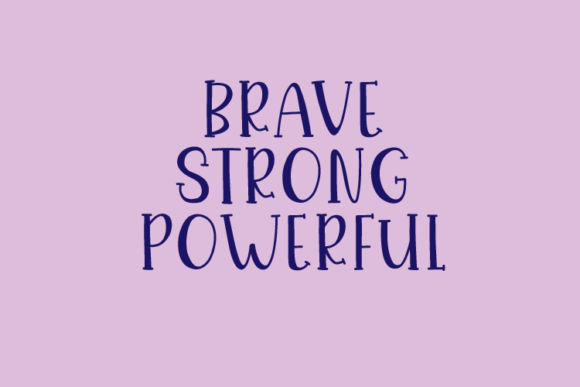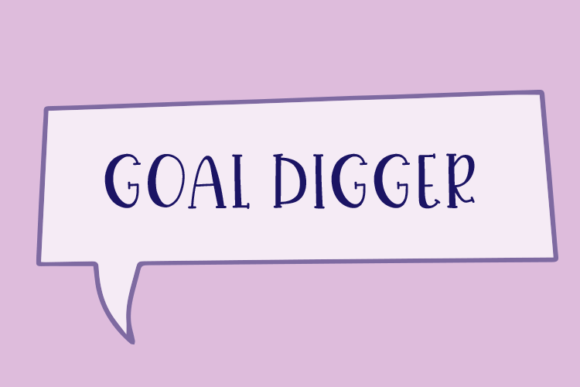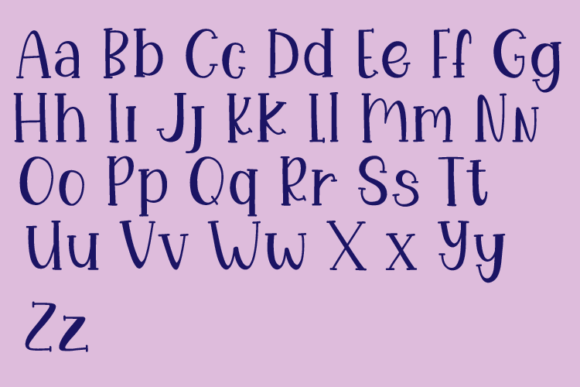
Introduction to Quirky Quotes Font
Quirky Quotes is a serif font carefully created by hand.
It is a useful font for logos, branding, SVG Quotes, book covers, greeting cards, blogs, and much more .
Key Features of Quirky Quotes Font